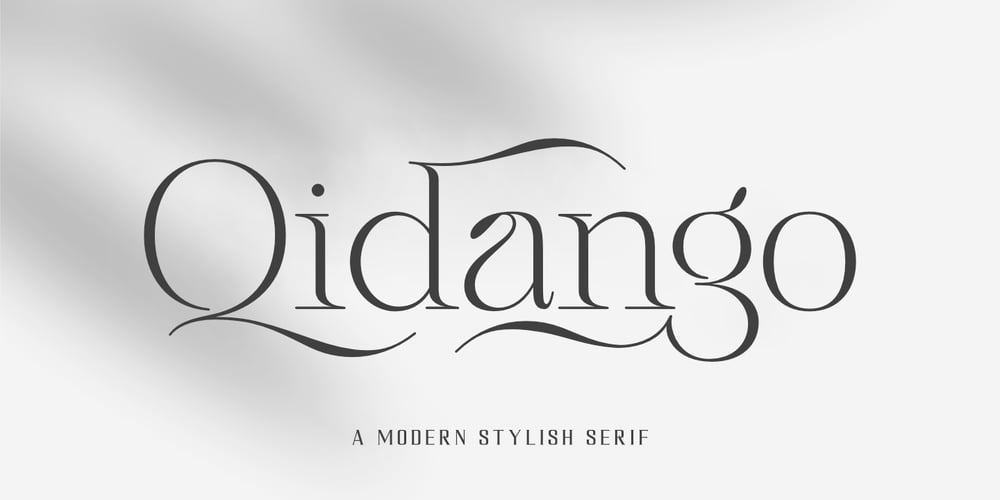
Qidango Font Family was designed by Saiful Anwar and published by Sealoung. Qidango contains 2 styles and family package options. Introducing, Qidango is a serif typeface created with elegance and luxury, exuding femininity and glamour, but also a side of beauty with many alternatives to help you create endless variations for your creative needs.Featuring an italic style with striking contrasts and subtle details, as well as luxurious strokes and voluptuous curves, it creates a beautiful and powerful statement for any typographic composition, combining glamor with a contemporary aesthetic.